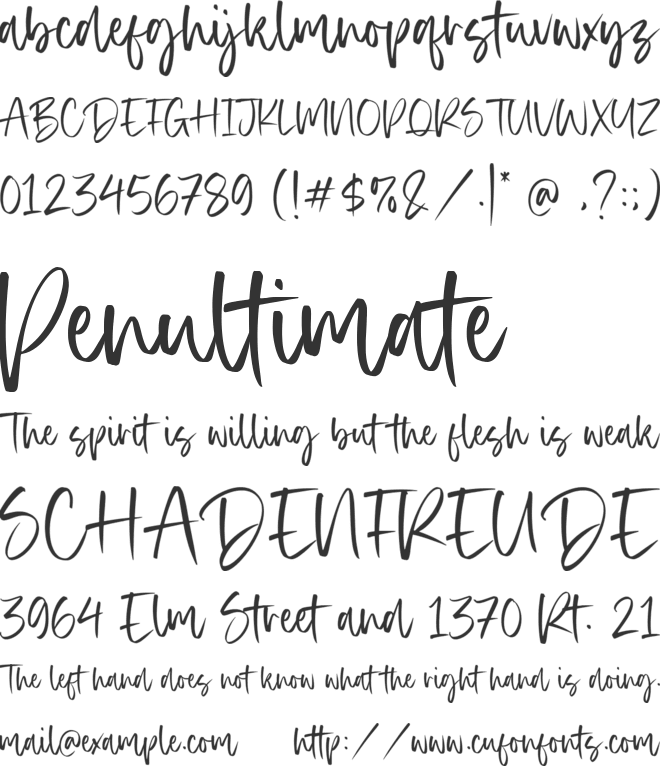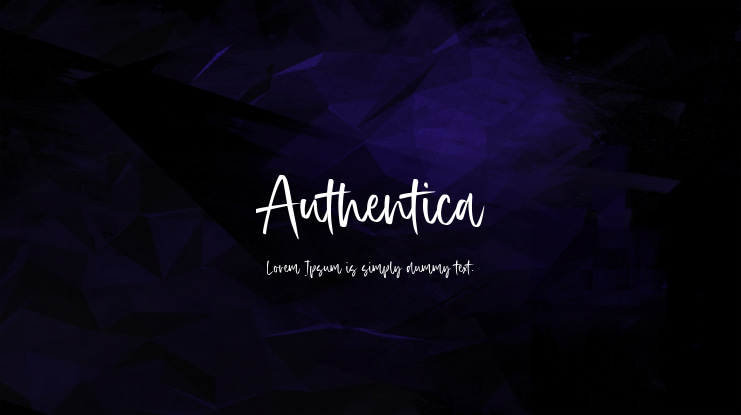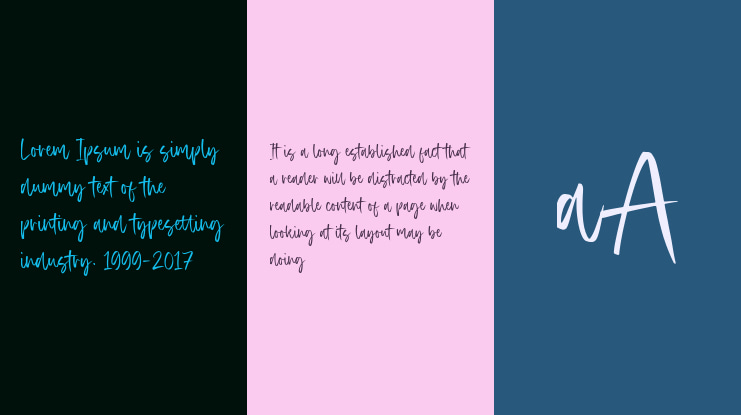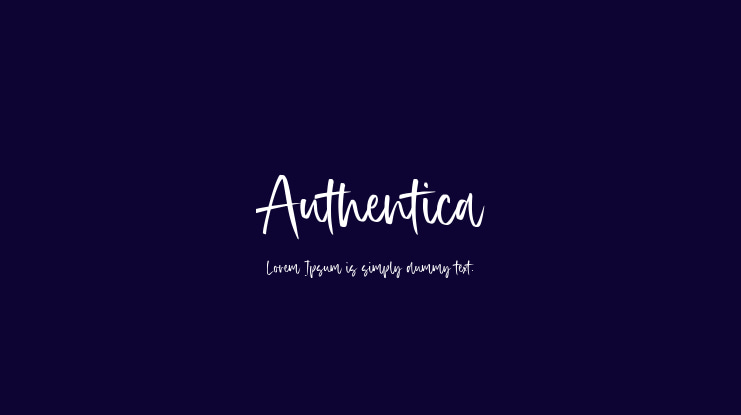
Authentica Font
Introducing by Balpirick Studio.
Authentica is a Modern Calligraphy Font.
Whether you’re using it for crafts, digital design, presentations, or making greeting cards, this font has the potential to become your favorite go-to font, no matter the occasion!